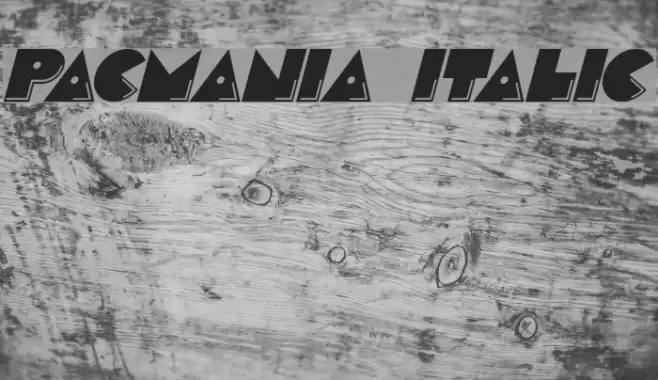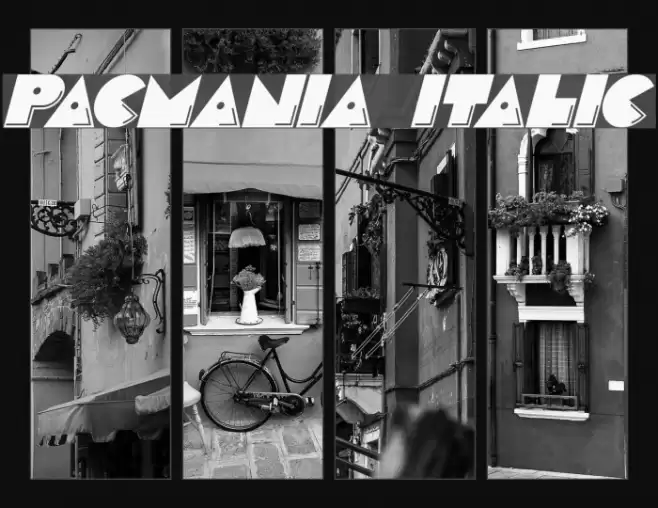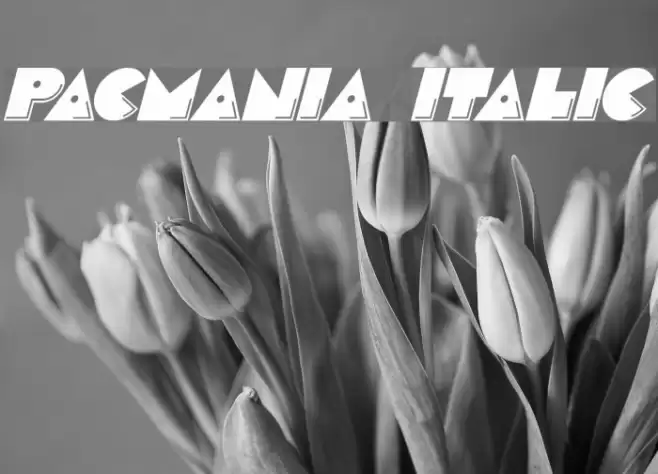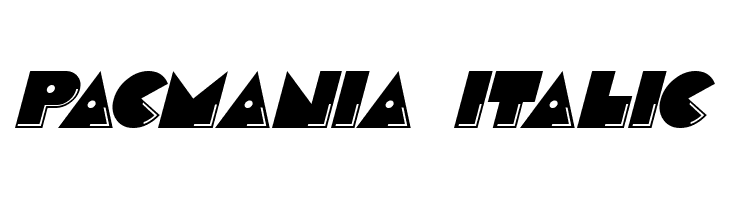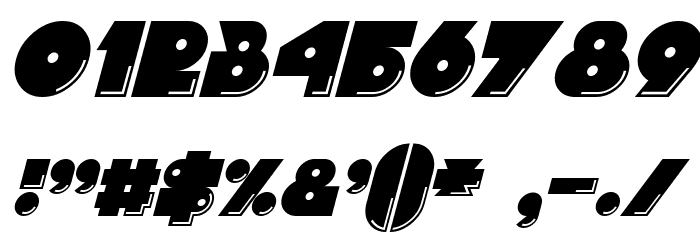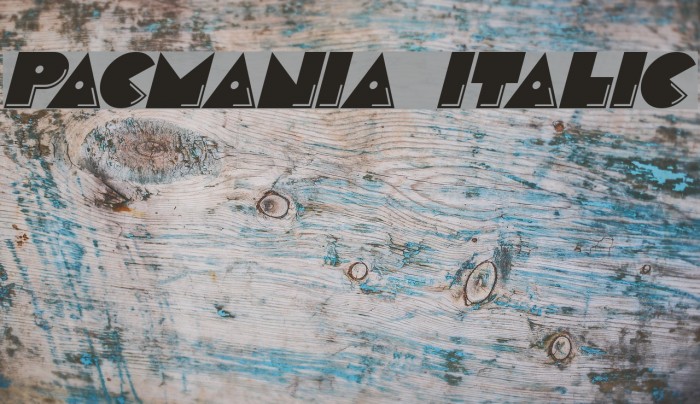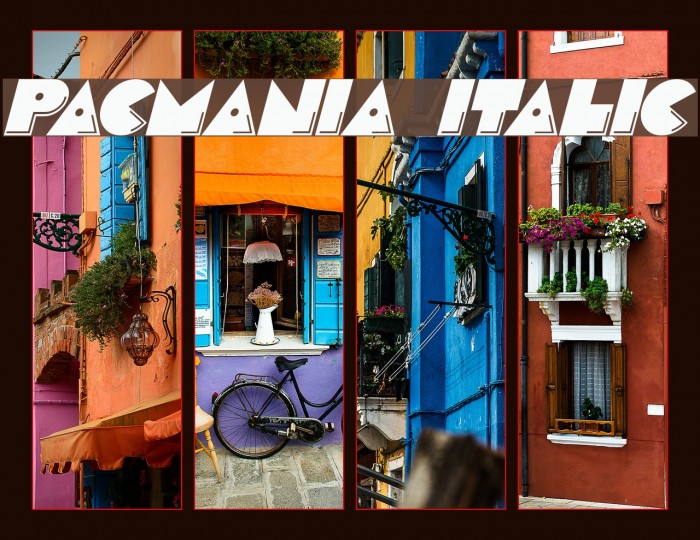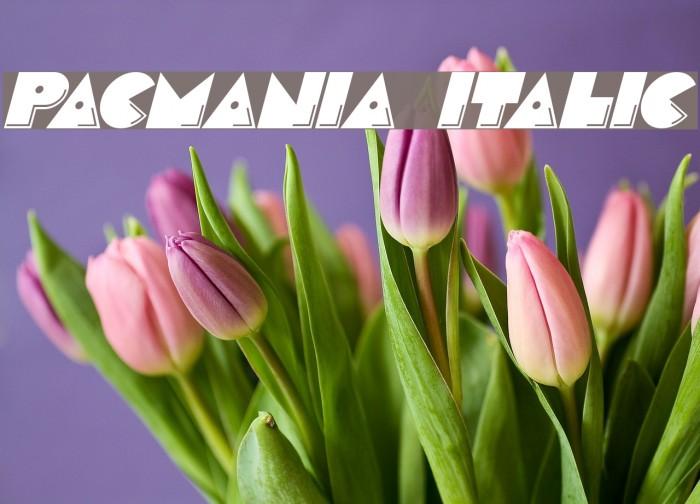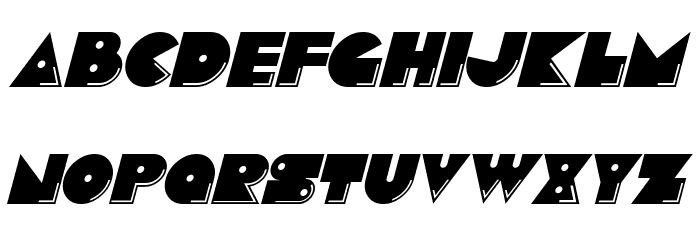
Pacmania Italic Font
Pacmania Italic Description
This font features a bold and playful design with a distinct retro gaming influence. The characters are heavily stylized, incorporating geometric shapes and sharp angles that give a dynamic and energetic feel. The uppercase and lowercase letters maintain a consistent style, with exaggerated curves and a sense of movement. The numbers and special characters follow the same design principles, ensuring a cohesive look across all glyphs. The font's unique style makes it stand out, ideal for projects that require a fun and nostalgic touch.
A bold, playful font with a retro gaming vibe and geometric shapes from Uncategorized fonts.
- Proposed Projects: Perfect for video game titles, retro-themed posters, children's book covers, and playful branding.
- Overall Style: Retro, Playful